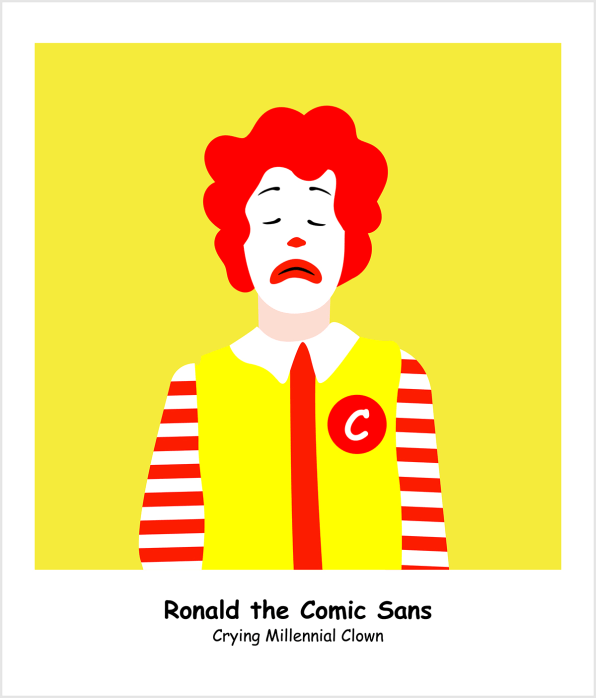
The font you choose to convey your words also conveys a lot about you, in and of itself. Are you a Times New Roman kind of person: sleek, professional, and perhaps a tad stiff? Or are you more of a Comic Sans man, a total clown or maybe someone who just discovered the concept of irony like two seconds ago. If these fonts could talk, they would have a lot to say–and a new series takes us closer than ever before to finding out what that might be.
If Fonts Were People is a new series from design shop Love & Robots that puts faces to the lettering that bears all names. Created by the team at Love & Robots, the series not only imagines looks for the people who would embody the fonts we love (and also the ones we don’t), she’s given them backstories as well.
Ronald the Comic Sans, for instance, is “a young and troubled entertainer who came into being in the mid ’90s. As with most great entertainers, he is not afraid of a little controversy. Adored by children yet reviled by many, Ronald is known to have something of a sinister side, often showing up in places completely unsuitable for an entertainer of his kind. He’s been known to lurk around ‘Do not enter’ signs in toilet cubicles and on serious notices in Doctors offices. Once attempting to be taken seriously announcing the split and reformation of a Greek Government party!”